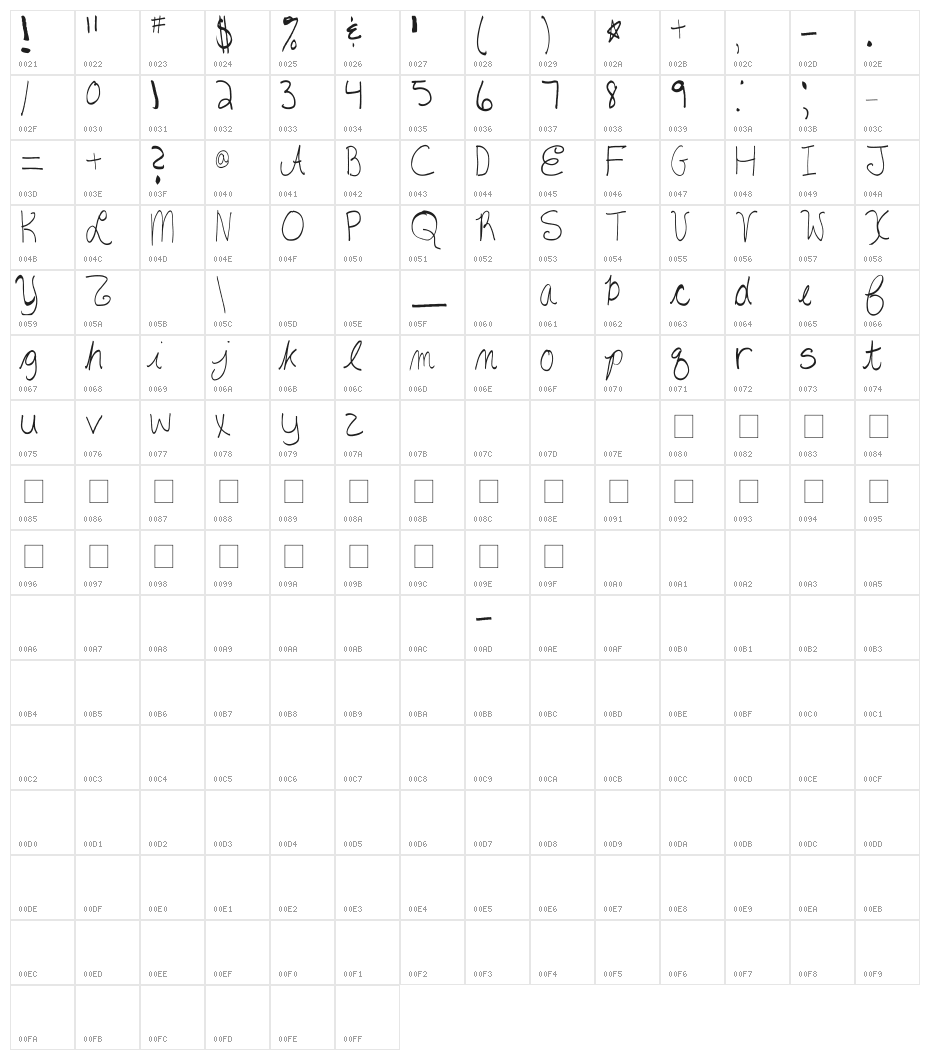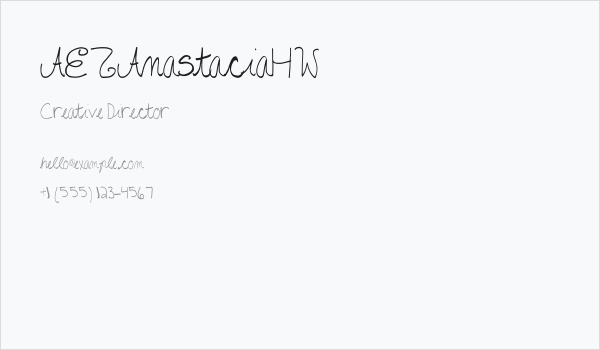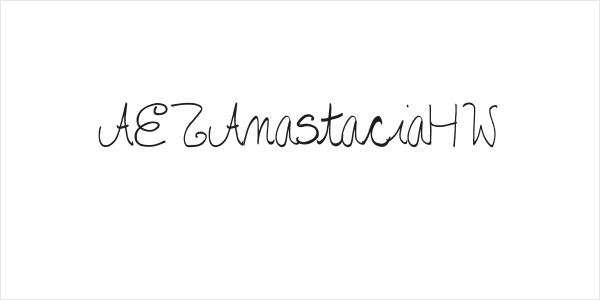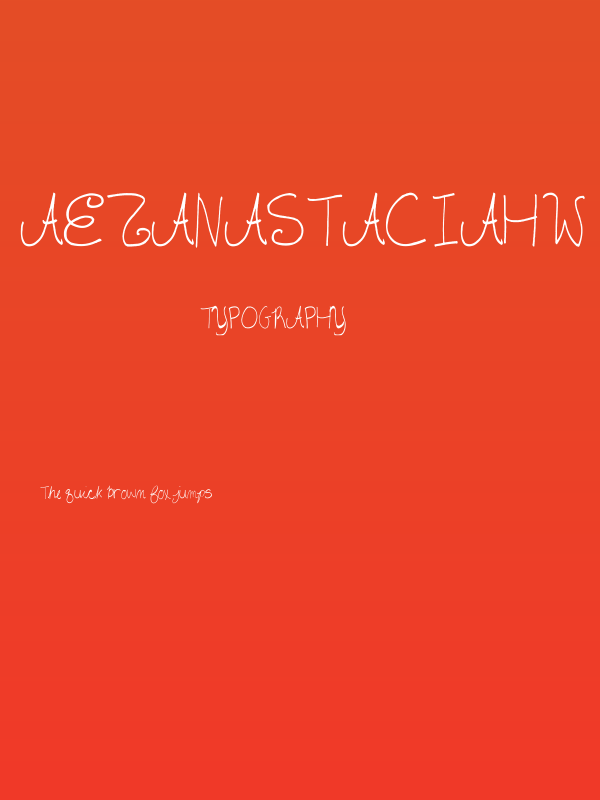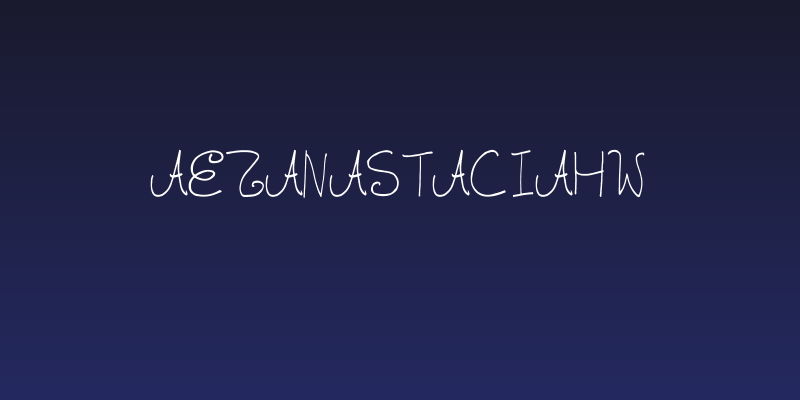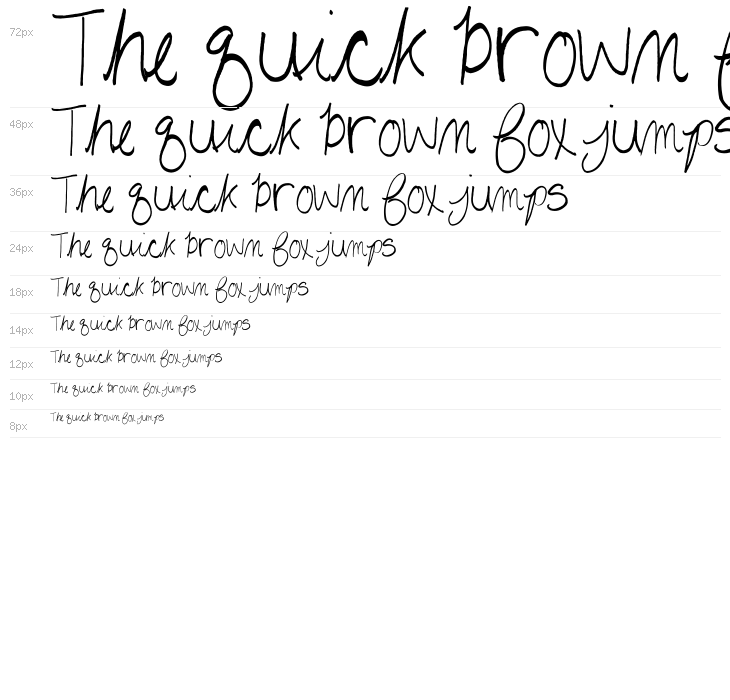
AEZAnastaciaHW Font
AEZAnastaciaHW Description
This font exhibits a playful and casual handwritten style, characterized by its irregular and flowing letterforms. The uppercase letters are tall and narrow, with a slight slant that adds to the informal feel. Lowercase letters are more rounded and connected, enhancing the script-like appearance. The numbers maintain the same playful quality, with varying heights and strokes. Special characters are creatively designed, adding a whimsical touch. Overall, the font conveys a sense of spontaneity and creativity, making it suitable for projects that require a personal and approachable aesthetic.
| Proposed Projects | Ideal for greeting cards, invitations, personal branding, and creative projects that require a friendly and informal touch. |